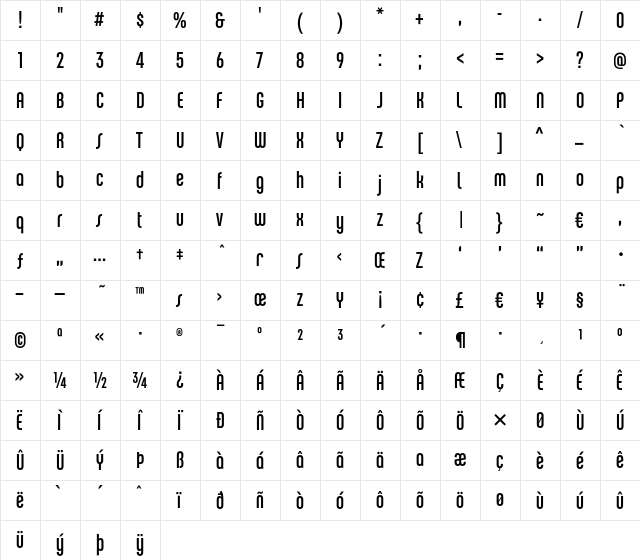
ChaletComprime-CologneSeventy Regular
Design Context for ChaletComprime-CologneSeventy Typeface
ChaletComprime-CologneSeventy is a composed and adaptable typeface that performs quietly and consistently across a wide range of design contexts.